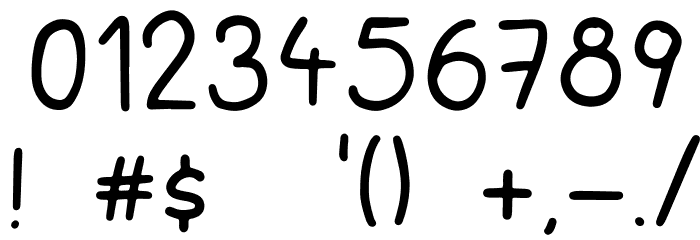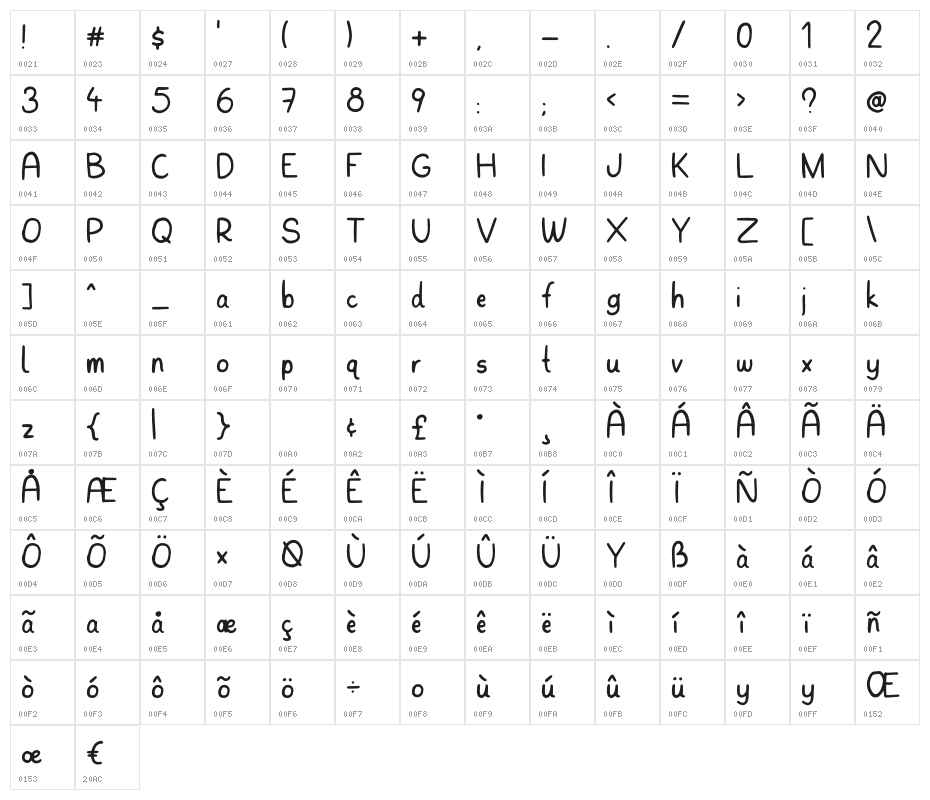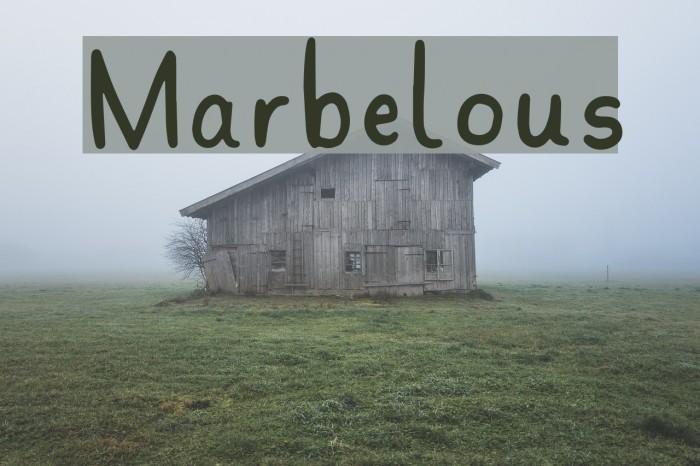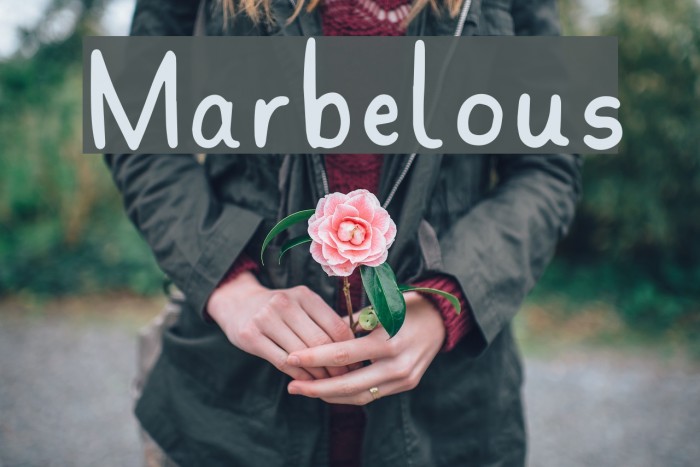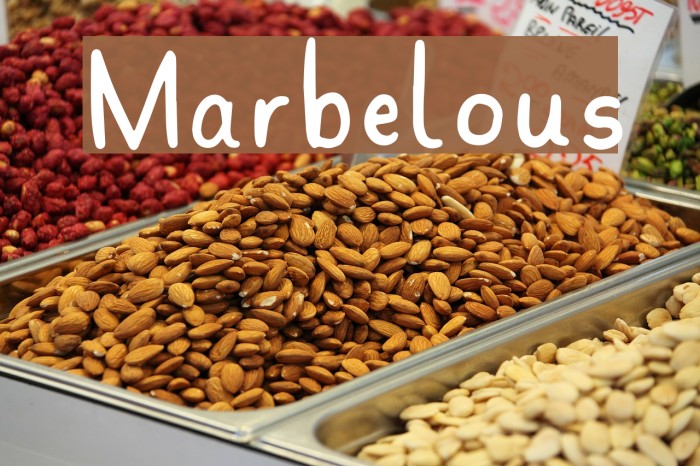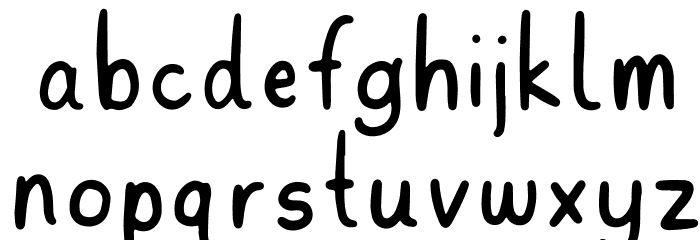
Marbelous Font
Marbelous Description
This playful and whimsical font features a handwritten style with rounded edges and a casual appearance. The characters are slightly irregular, giving it a charming and approachable feel. The uppercase letters maintain a consistent height, while the lowercase letters exhibit a slight variation in size, adding to the font's informal nature. The numerals are bold and easy to read, complementing the overall style. Special characters are well-integrated, maintaining the same playful aesthetic. This font is ideal for projects that require a friendly and informal touch.
| Use Case | Headlines, Logos, Casual Text |
| Proposed Projects | Ideal for children's books, greeting cards, playful branding, and casual invitations. |